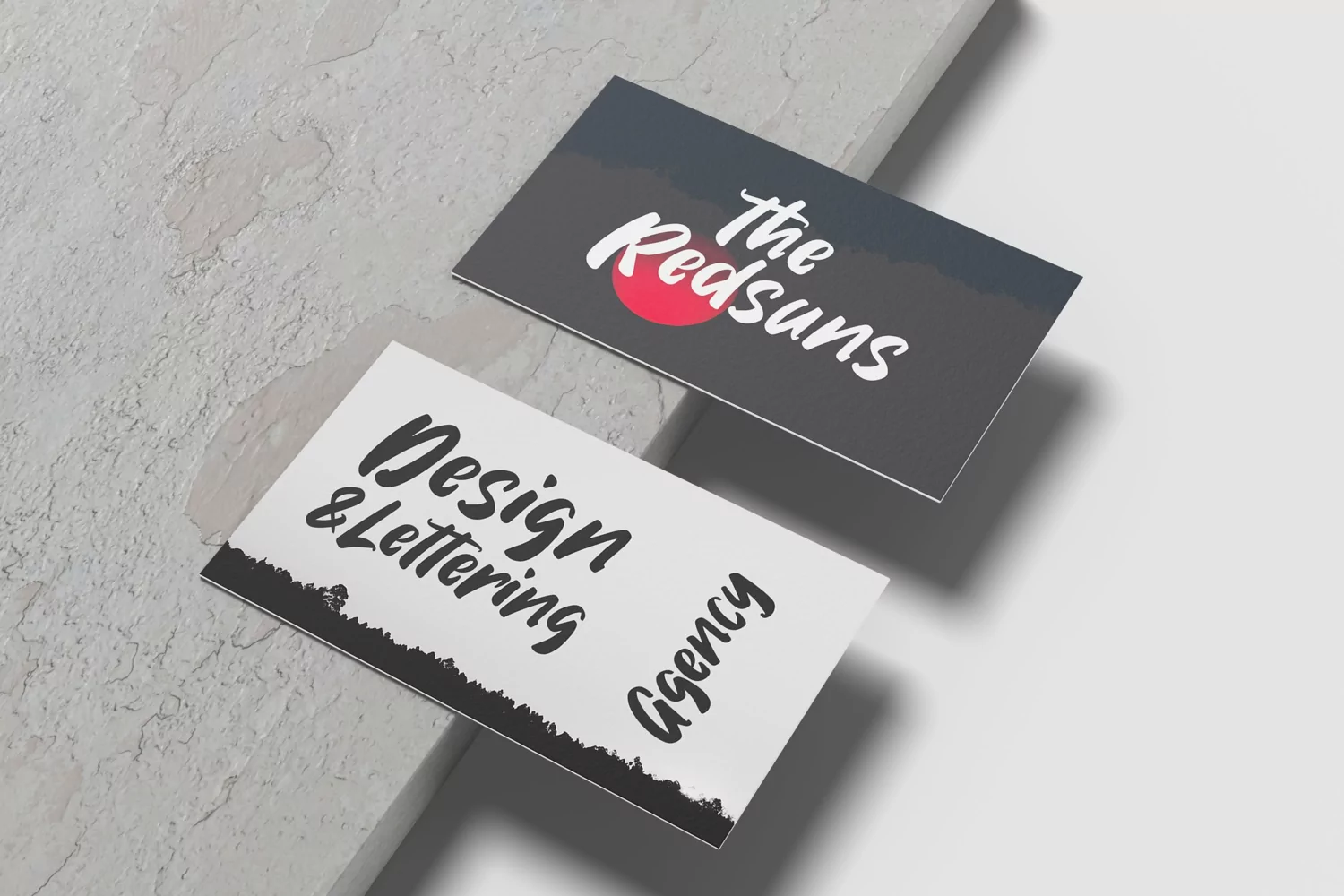
Disstract - A Handlettering Font that contain lowercase, uppercase, symbol, and also support multi language. There’s a lot ligatures in this font. This Font also comes with ligatures, alternates and many more. this font suitable for fashion, branding, catalog and other design what you want.